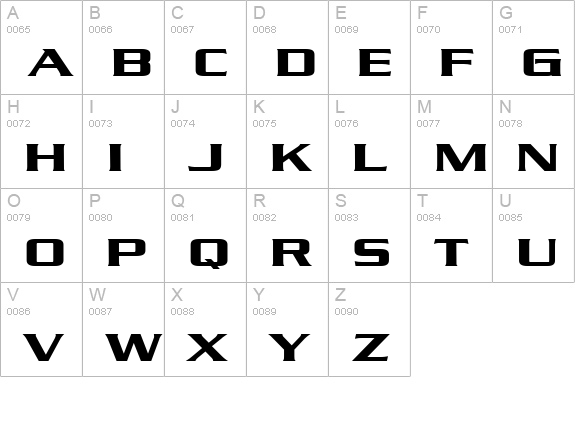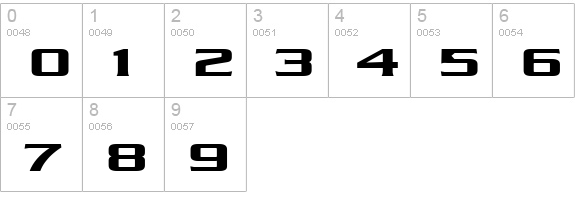
Chaney Extended Bold is a strong, high-contrast, extended-width variant in the Chaney typeface family \xE2\x80\x94 well suited to headlines, attention-grabbing titles, and strong calls-to-action.
Chaney Extended Bold is a modern and bold typeface that exudes confidence and strength. Its sleek lines and sharp angles make it perfect for making a statement in headlines, logos, and branding materials. The extended character set provides versatility for various design projects, while maintaining a cohesive and polished look. Whether you're designing a poster, website, or packaging, Chaney Extended Bold will ensure your message is delivered with impact and style. Best of all, Chaney Extended Bold is available for free download at FontsMarket.com. This means you can easily access this high-quality font to elevate your designs without any cost. Don't miss out on this opportunity to enhance your creative projects with the striking presence of Chaney Extended Bold font.